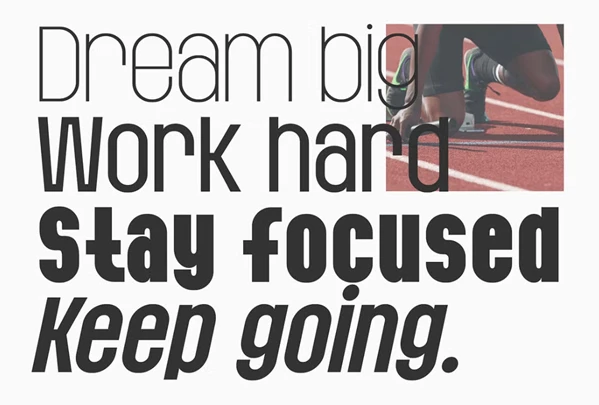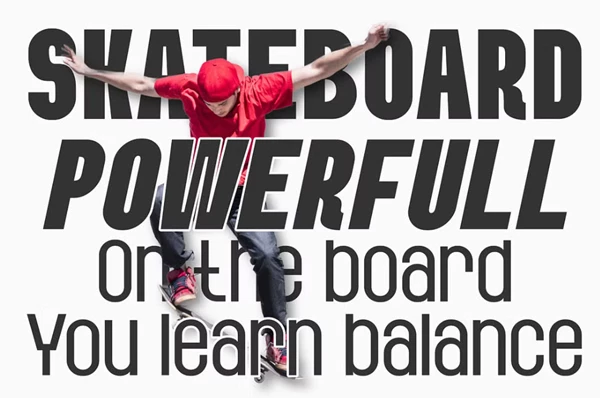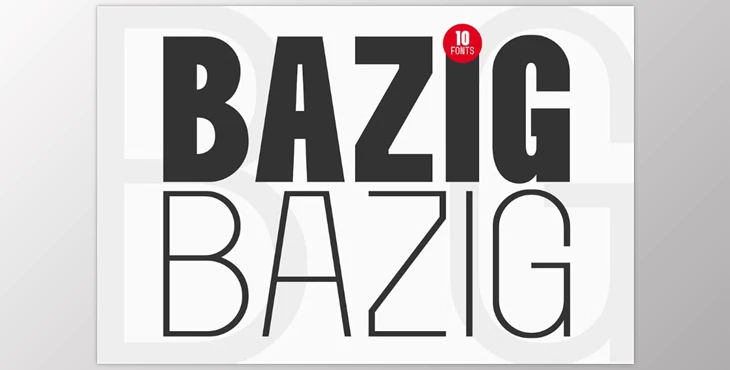
Bazig Modern Sans Serif Family - 10 Fonts:
The Bazig Modern Sans Serif Family is a refined font pack that has a streamlined and flexible design, ideal for multiple use cases. With Thin, regular, and Bold weights and Italics, this font family is a valuable addition to any creative project. Its design provides a harmonious juxtaposition of sharpness and minimalism, which is ideal for professional fonts, impactful headlines, compelling posters, lively websites, and refined slides.
Some great features of Bazig Modern Sans Serif Family - 10 Fonts:
- 10 styles available: Thin, Light, Regular, Medium, Semi Bold, Bold, and their Italics
- Central and Eastern European language support
- Uppercase, lowercase, numerals, and punctuation